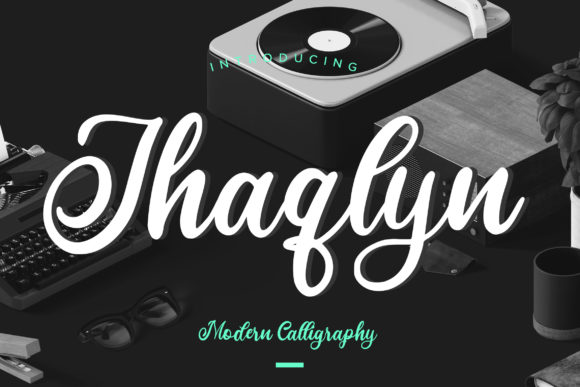
Jhaqlyn Font
Welcome to the world of Jhaqlyn Font, an exquisite script font that breathes life into your creative endeavors. Jhaqlyn is not just a font; it's an experience that captures the essence of elegance and whimsy. Immerse yourself in a symphony of letters that dance and flow, leaving a trail of enchantment on every word.
Jhaqlyn's playful personality shines through in its charming curves and the delicate strokes that intertwine to create a unique and eye-catching appearance. Each letter carries the artist's passion, a testament to the intricate details and the love woven into every character. Whether you're designing invitations, creating posters, or crafting logos, Jhaqlyn's presence adds a touch of magic that sets your work apart.
Unleash your creativity and let Jhaqlyn be your guide as you embark on a visual journey. From the gentle strokes that define each curve to the sweeping swashes that add a touch of dynamism, Jhaqlyn is a font that invites you to explore your imagination and create something truly captivating. The handwritten aesthetics of Jhaqlyn infuse your designs with a personal touch, making every project feel like a labor of love.
With Jhaqlyn, you'll discover endless possibilities to elevate your designs. Whether you're working on branding, social media, or website designs, Jhaqlyn's versatility knows no bounds. It seamlessly adapts to a variety of projects, becoming an integral part of your creative vision. Its elegant curves and stylish strokes bring a sense of sophistication and charm to any design, leaving a lasting impression on your audience.
Jhaqlyn is more than just a tool; it's an expression of your unique style. Its ability to transform ordinary words into works of art makes it the perfect choice for those seeking to make a statement. Whether you're a designer, a crafter, or simply someone who loves to play with words, Jhaqlyn empowers you to tell your story with flair and finesse.